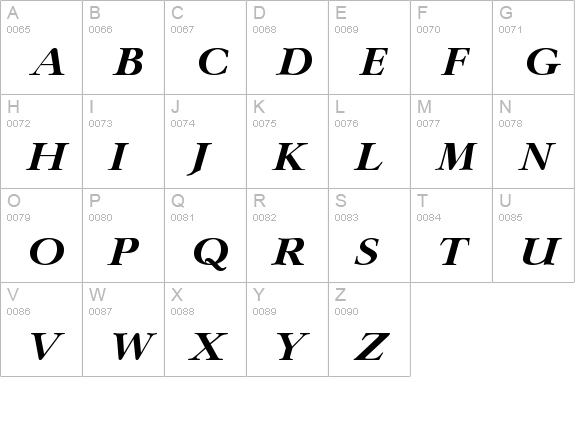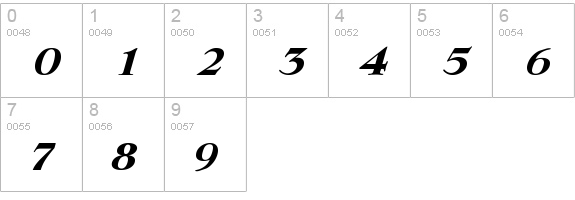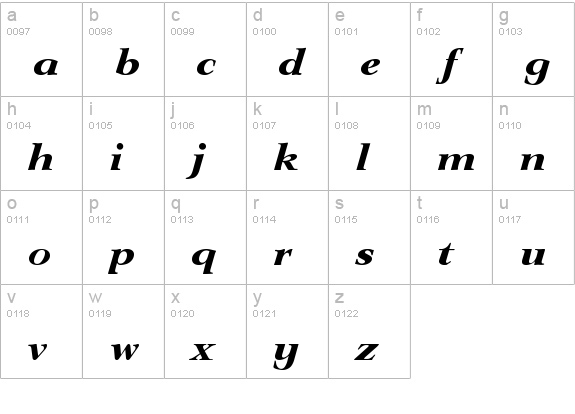
LingwoodEF-BoldItalic Font Details
Below you can preview LingwoodEF-BoldItalic in uppercase [A-Z], lowercase [a-z] and numbers [0-9]. You can also read the author's notes and license information before downloading.
LingwoodEF-BoldItalic font is a sophisticated and elegant typeface that exudes a sense of modernity and creativity. Its bold and italic design adds a touch of flair to any project, making it perfect for headings, titles, and other attention-grabbing text. The sleek curves and sharp angles of this font create a unique visual impact that is sure to leave a lasting impression. What's even better is that LingwoodEF-BoldItalic is completely free to download at FontsMarket.com. This means you can enhance your designs with this striking font without having to spend a penny. Whether you're working on a personal project or a professional assignment, LingwoodEF-BoldItalic is a versatile font that is sure to elevate your work to the next level. Don't miss out on the opportunity to add this beautiful font to your collection. Download LingwoodEF-BoldItalic today and let your creativity shine!